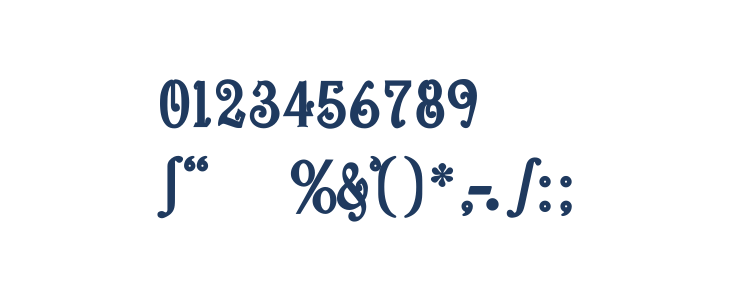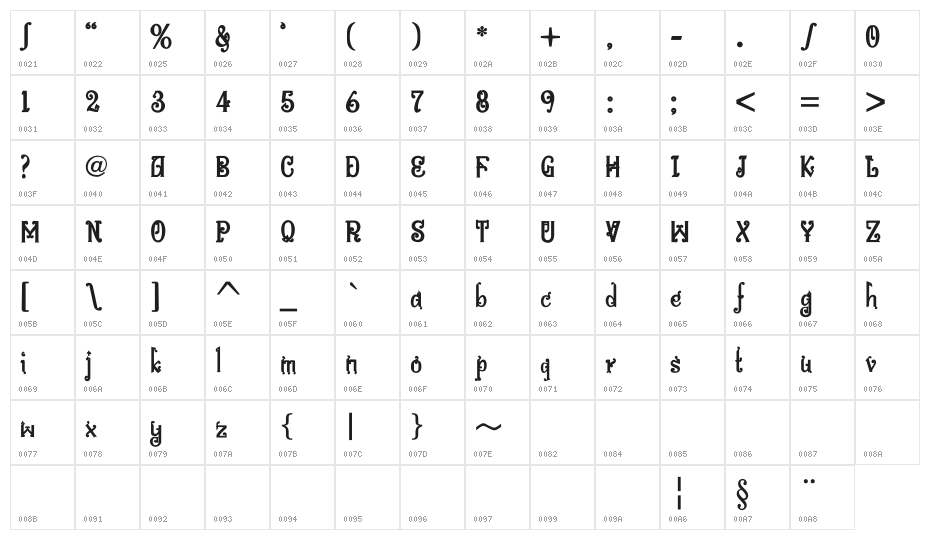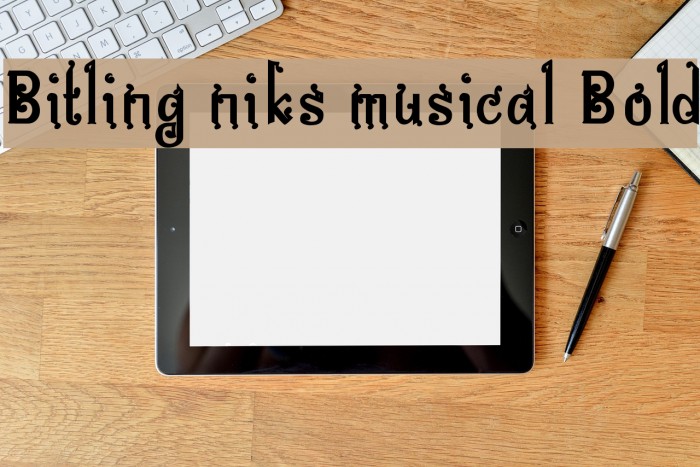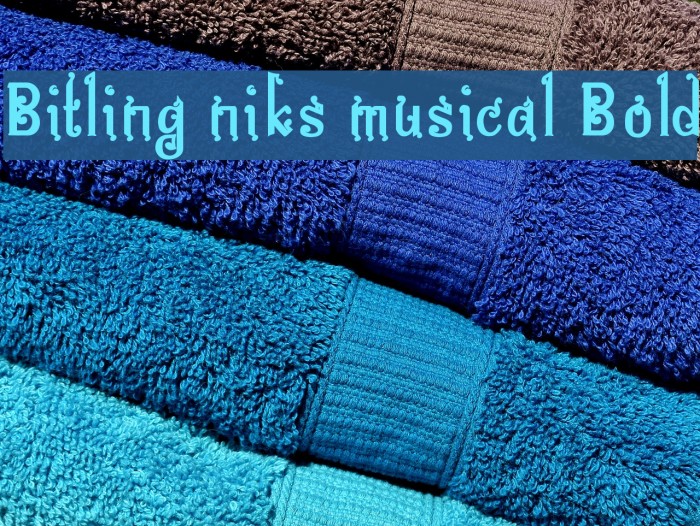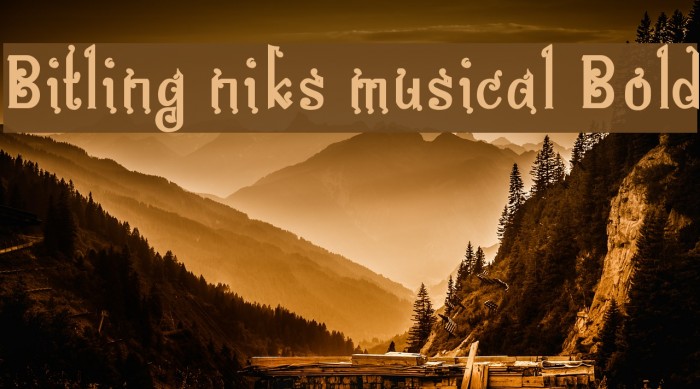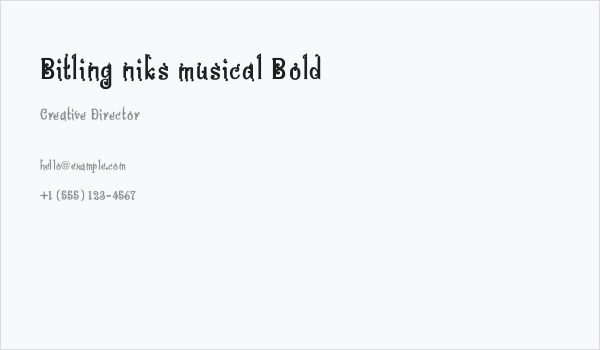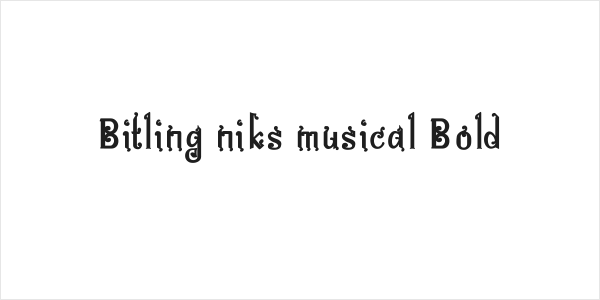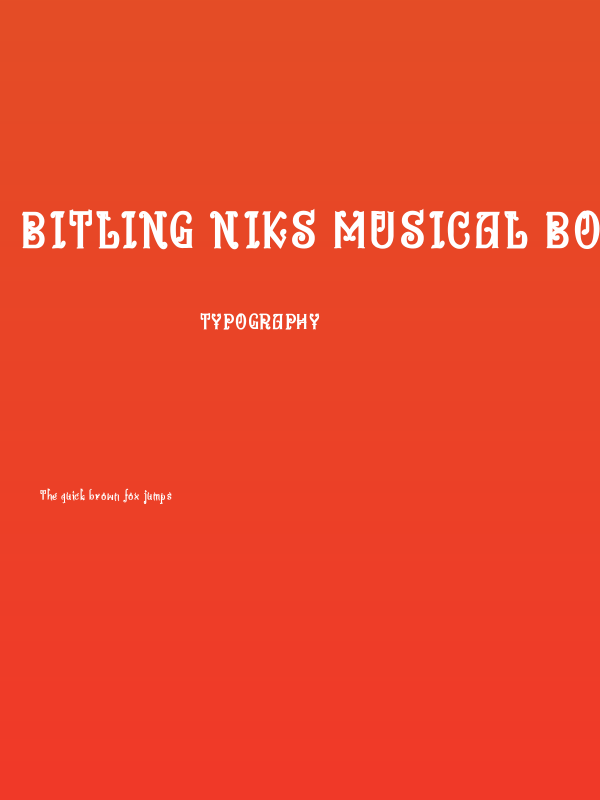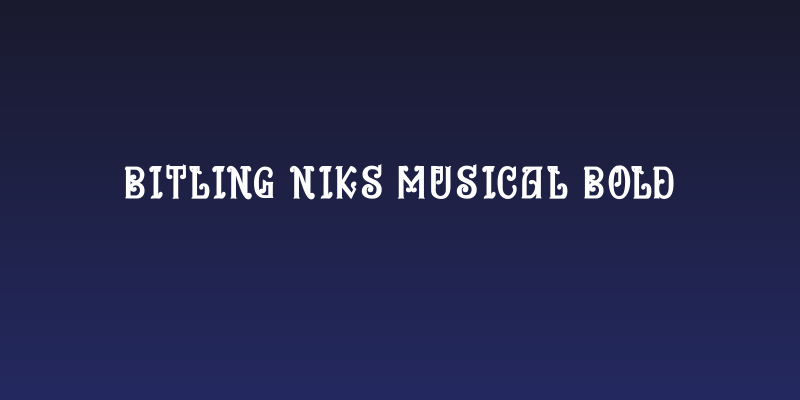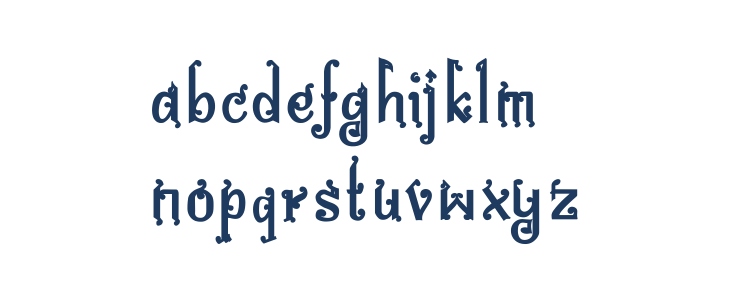
Bitling niks musical Bold Font
Bitling niks musical Bold Description
This font features a bold and decorative style with a unique flair that combines elements of both traditional and modern design. The characters are adorned with intricate details, such as curls and hooks, giving it a whimsical and playful appearance. The uppercase letters are particularly striking, with strong vertical lines and ornate embellishments. The lowercase letters maintain a consistent style, ensuring readability while adding a touch of elegance. Numbers and special characters are crafted with the same attention to detail, making this font versatile for various creative applications.
| Proposed Projects | Ideal for music-themed posters, album covers, theatrical event flyers, and artistic branding projects. |